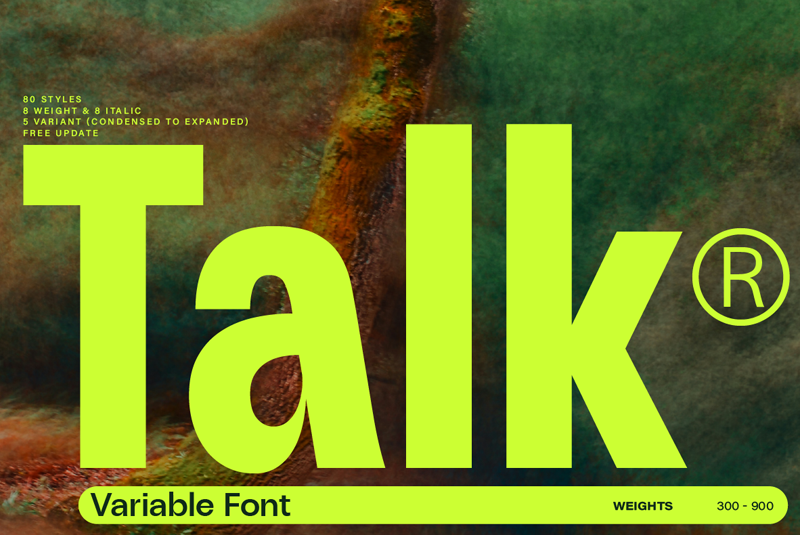
Behind every character lies an extraordinary story. ZT Talk is not just a font; it is a silent witness to a journey filled with struggle and courage to create something unforgettable. - 80 Styles: Offering a wide collection of 80 unique styles, ZT Talk provides unparalleled flexibility in design. - 5 Variant Varieties: Condensed, Semi Condensed, Normal, Semi Expanded, and Expanded - 8 Weights & Italic: Spanning from Light to Black, eight weights provide clear and effective text hierarchy. - 8 free styles (Regular, Medium, Semi Bold, Bold / Italic) - Extensive Compatibility: Available in OTF, TTF, WOFF, WOFF2, EOT formats, ensuring compatibility with various design platforms and applications. - Multi-Language Support: With support for multiple languages and accents, ZT Talk allows you to reach a global audience effortlessly. - Consistent Cohesion: Despite its many styles, ZT Talk offers consistent visual cohesion throughout its font family, ensuring harmony in your designs. - Modern and Elegant Design: With a modern touch and sharp angles, ZT Talk exudes an elegant impression suitable for various contemporary design projects. - Optimal Quality: Carefully crafted for optimal quality, ZT Talk delivers the clarity and perfection expected from a premium font. Note of the author To download the full font family please visit our website: https://zelowtype.gumroad.com/l/zttalk?layout=profile Donation are very appreciated. Paypal account for donation : https://paypal.me/khaiuns CONTACT US: More... |